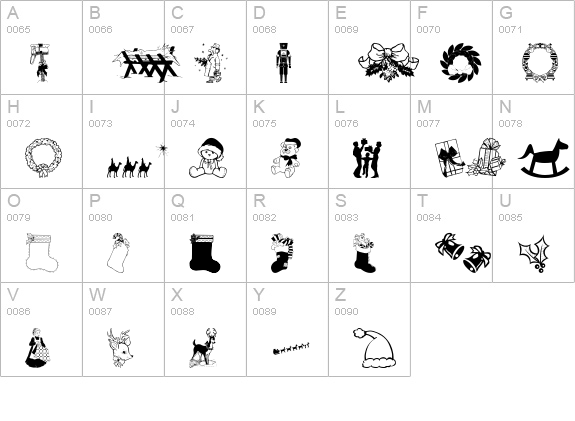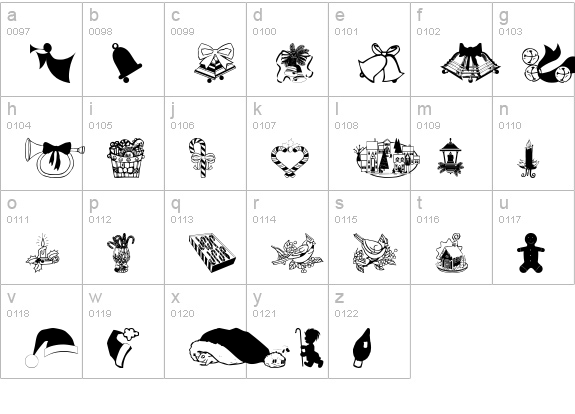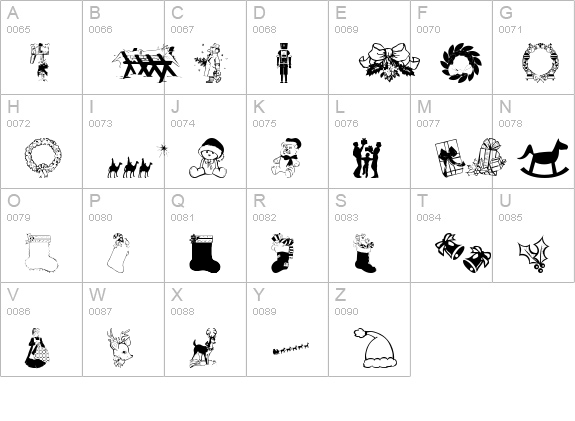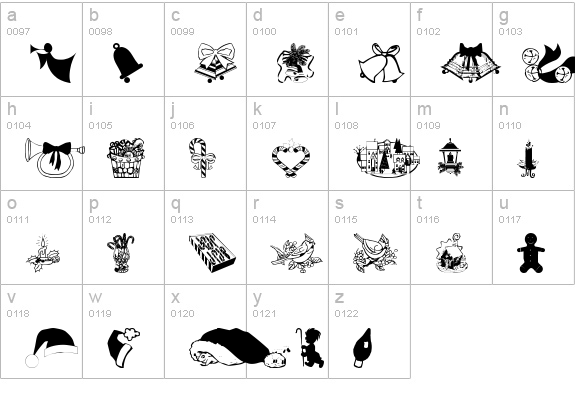
wmchristmas2 Font Details
The wmchristmas2 font is a whimsical and festive typeface perfect for adding a touch of holiday charm to your designs. With its playful and decorative style, this font is sure to bring a joyful and merry feel to any project. The intricate details and unique design elements make wmchristmas2 a standout choice for holiday cards, posters, invitations, and more. Best of all, wmchristmas2 is available for free download at FontsMarket.com. You can easily access this delightful font and add a festive flair to your creations without any cost. Embrace the holiday spirit and spread cheer with the charming wmchristmas2 font today!